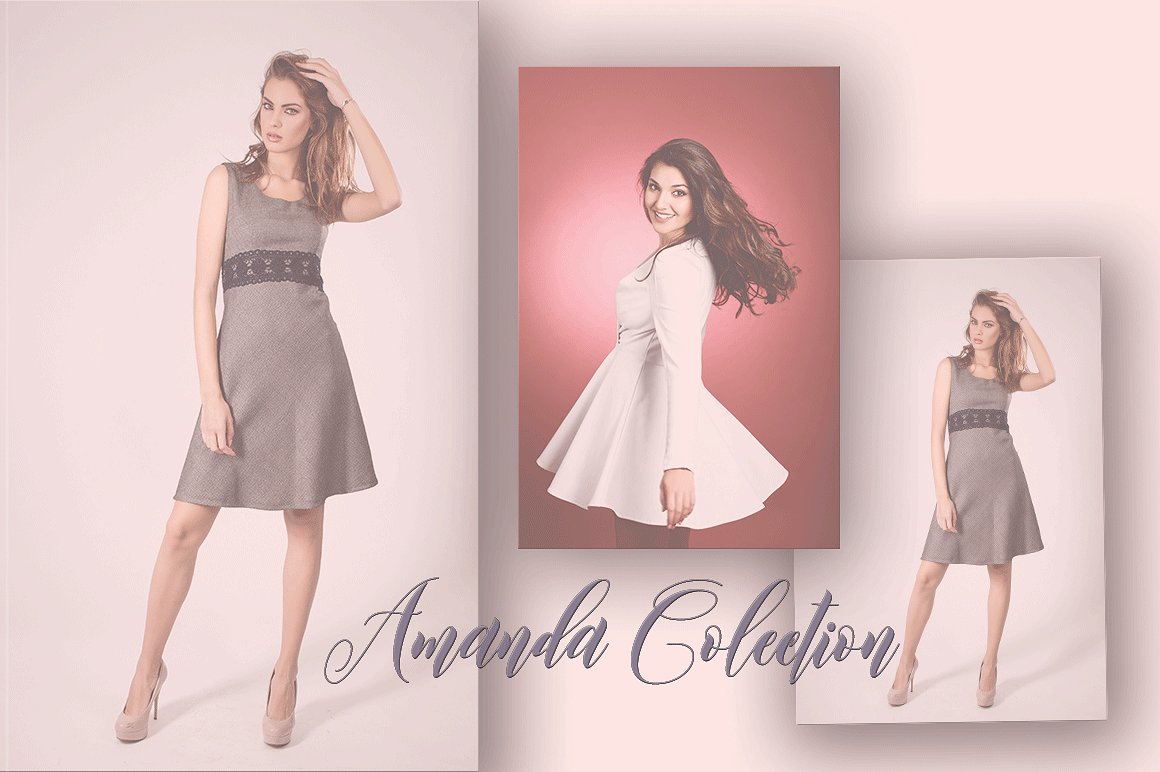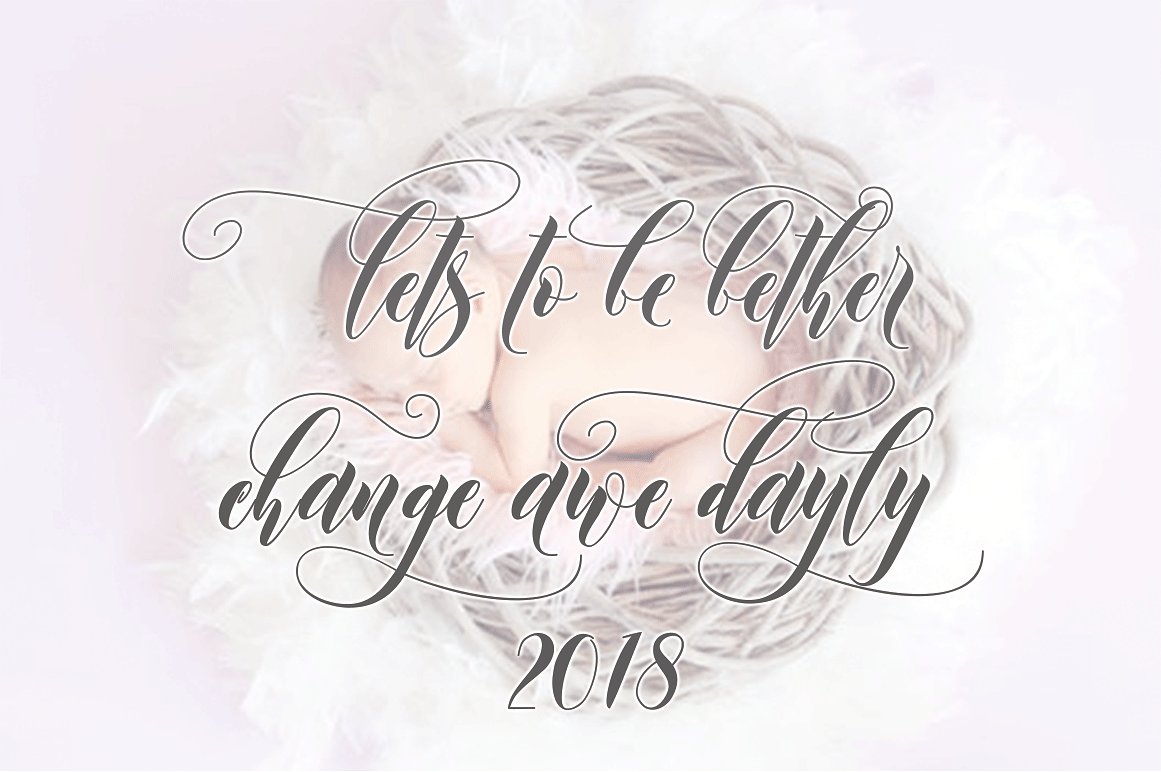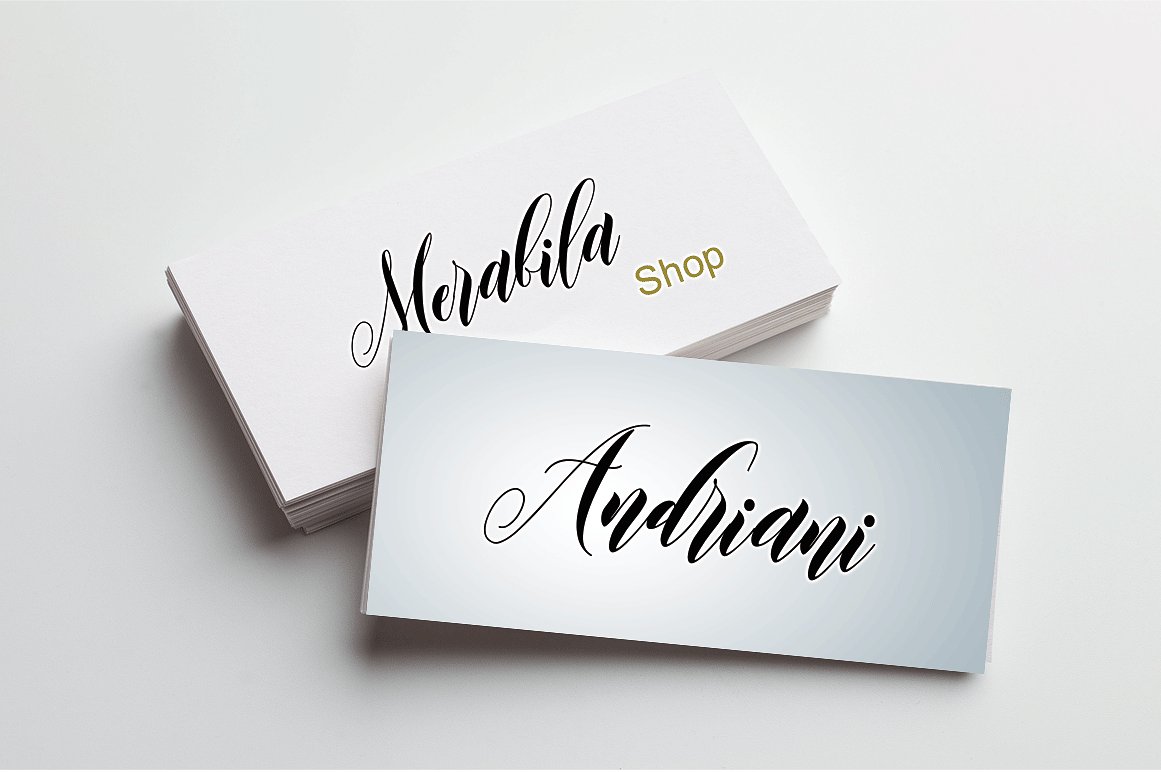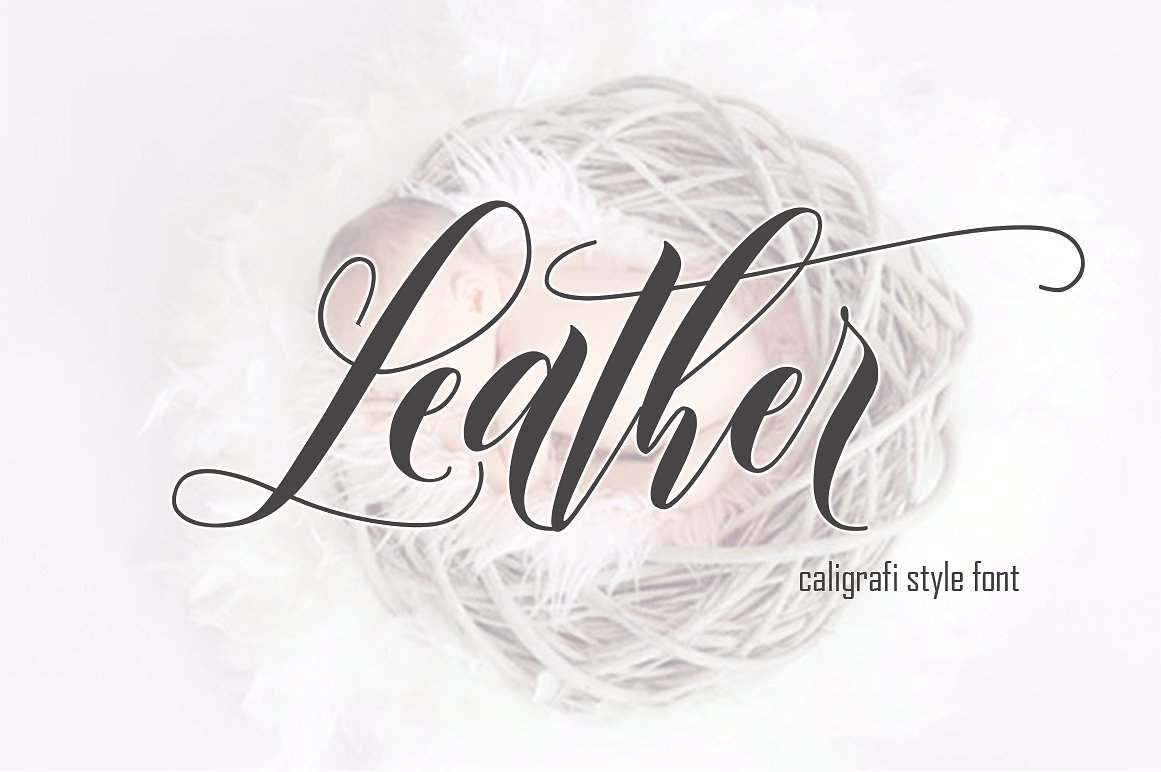
Leather Script Font
Hi designer. If you are looking for a calligraphy font, this would be a good choice. Introducing Leather! It is designed and shared by sinfa.co. Leather font is script font wish nice alternatif so will be elegan and moderent font for any needed to solve you work. Leather is perfect for fashion, e-commerce brands, trend blogs, or any business that wants to appear classy and chic.